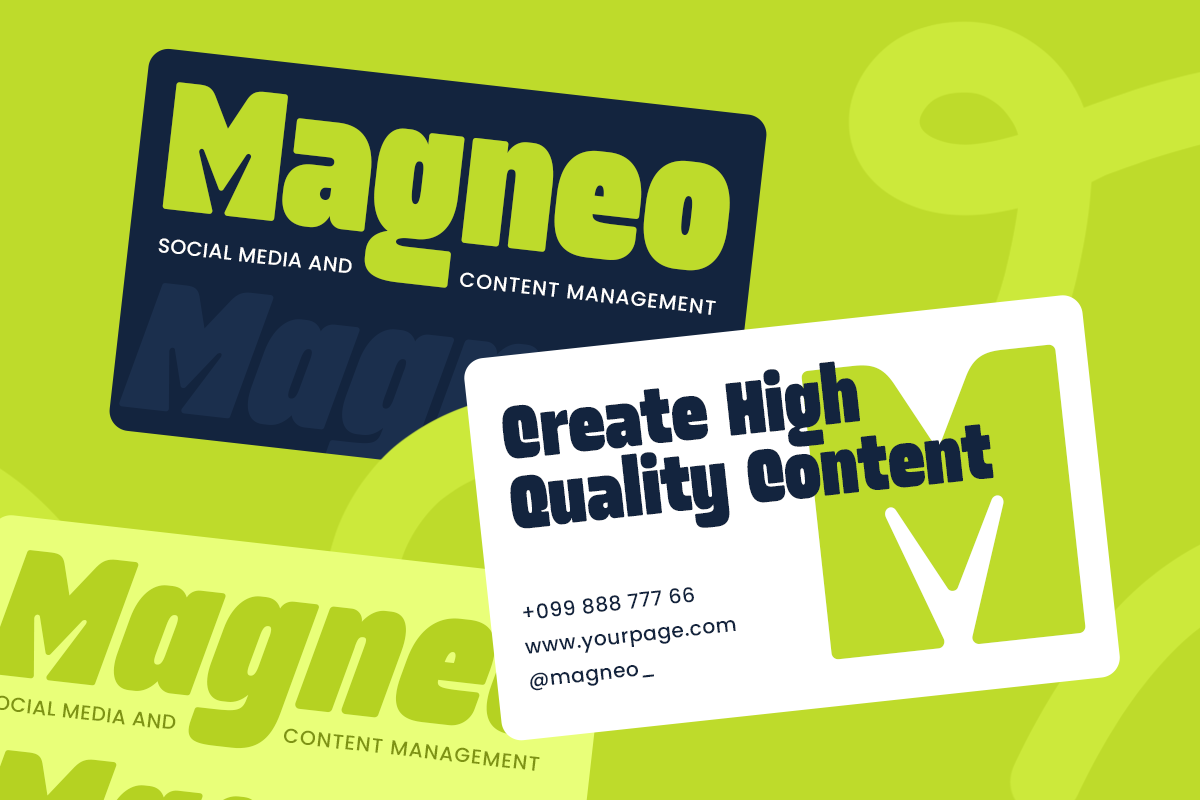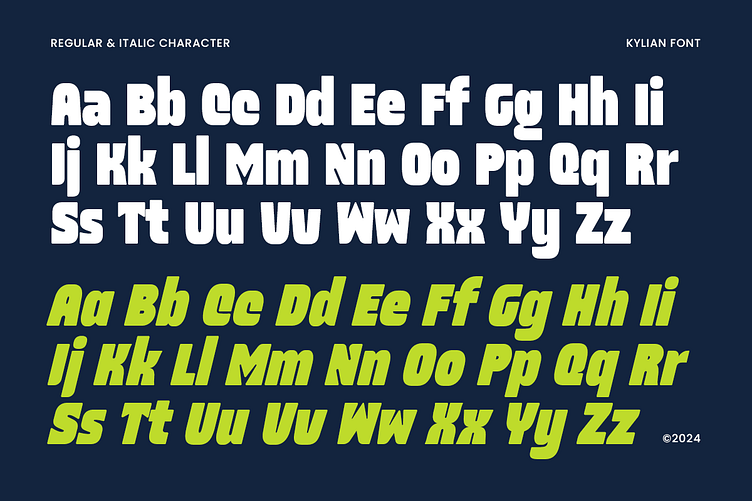
Kylian β Chunky Bold Font for Playful Food Branding ππ¨
Say hello to Kylian, a chunky and cheerful typeface made to stand out. Designed with bold curves and a fat, playful structure, Kylian β Display Bold Font is perfect for brands and creatives who want to make a statement with style and flavor.
π¨ The Story Behind Kylian
We created Kylian to capture the feeling of fun, flavor, and visual punch. Inspired by food packaging, storefront signs, and friendly branding, Kylian is made for display settings that need to be loud but lovable. Think street food brands, bold menu designs, snack packaging, or playful headlinesβKylian brings the energy.
β¨ Why Youβll Love Kylian:
β Super bold and eye-catching for instant attention
β Ideal for food branding, posters, logos & menus
β Rounded and fat letterforms for a warm, modern vibe